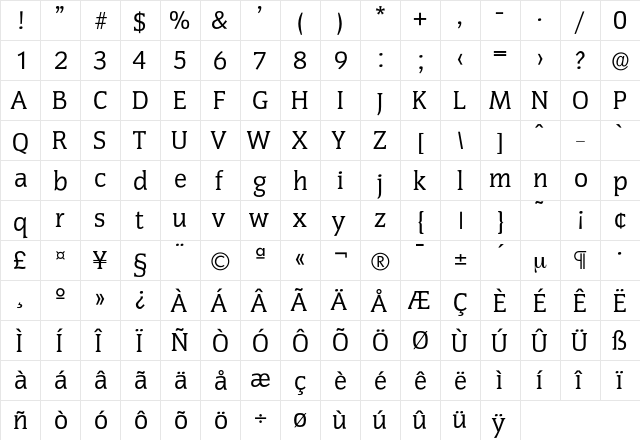
Congress-Regular Regular
Design Context for Congress-Regular Typeface
Congress-Regular offers clean, dependable letterforms without strong stylistic allegiance, making it a practical choice for designers who need flexibility.
Pro Tip: Use Congress-Regular in both headline and body roles to test its range before committing to a single application.